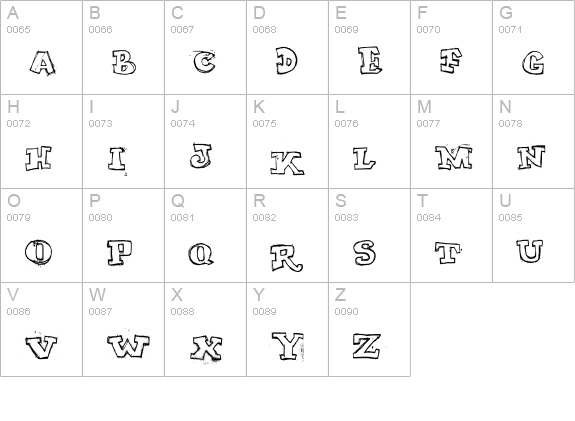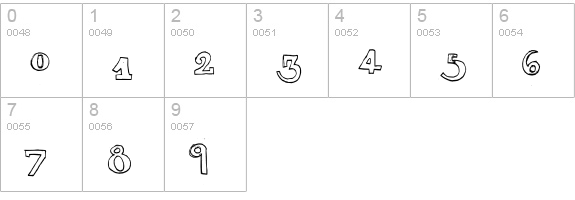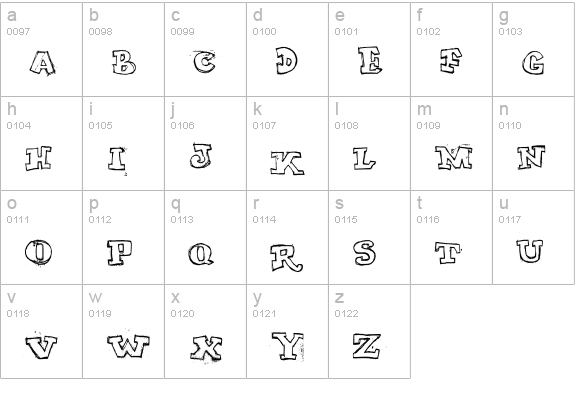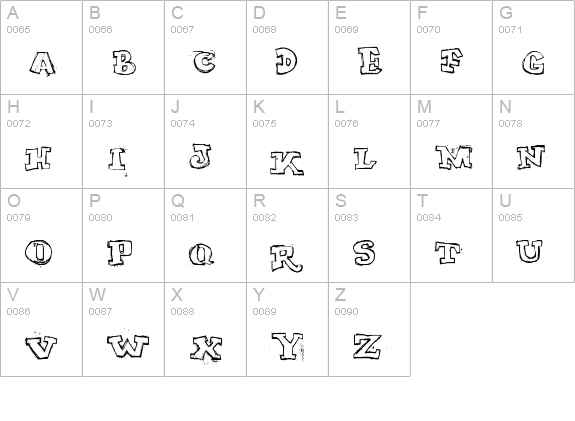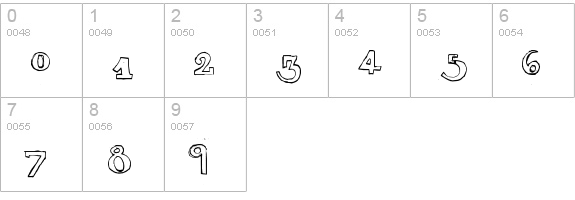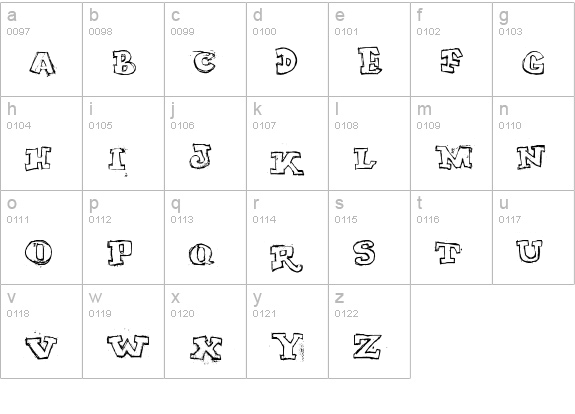
MY TURTLE Font Details
Introducing MY TURTLE font, a captivating and versatile typeface that will bring a touch of uniqueness to your designs. With its charmingly rounded edges and playful demeanor, this font is perfect for adding a delightful twist to any project. MY TURTLE font is not only visually appealing, but it also offers a sense of freedom and creativity. Its fluid strokes and carefully crafted letterforms effortlessly convey a sense of movement and grace, making it an ideal choice for a wide range of design applications. What sets MY TURTLE font apart is its accessibility. We believe that everyone should have the opportunity to create stunning designs without breaking the bank. That's why MY TURTLE font is freely available to download at FontsMarket.com, a trusted platform that offers a vast collection of high-quality fonts. Whether you're designing a logo, crafting invitations, or working on a digital project, MY TURTLE font will be your faithful companion. Its versatility allows it to adapt to various themes and styles, making it a go-to choice for designers and creative enthusiasts alike. So, don't miss out on the chance to add a touch of whimsy and elegance to your designs. Download MY TURTLE font for free at FontsMarket.com, and let your imagination run wild. Unleash your creativity and watch as your designs come to life with this charming and captivating typeface.